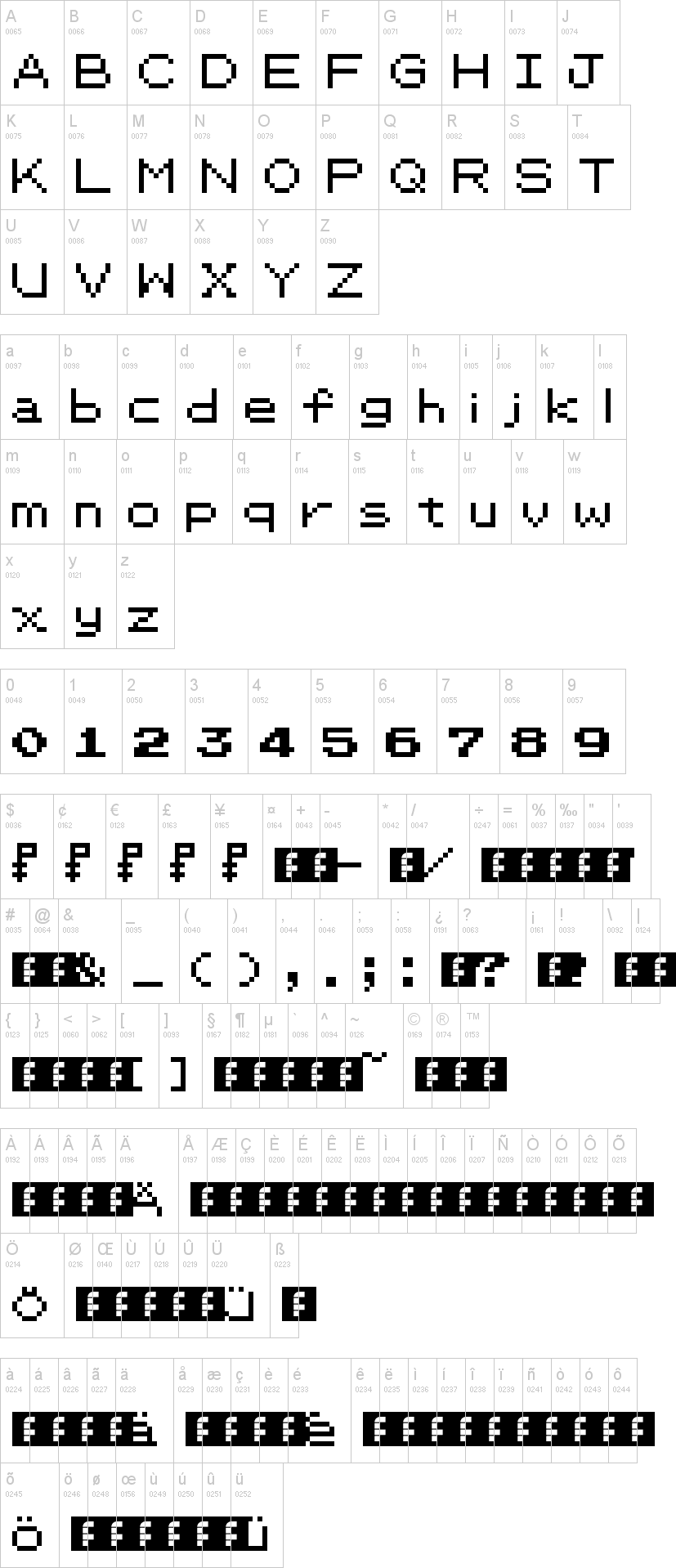
Note of the authorThis is the font used in the GB Pokémon games Red/Blue/Yellow/Gold/Silver/Crystal.
Usually when I check game sprite rips, there's a font as well.
But sometimes I can't find an actual font file, so I decided to make them myself.